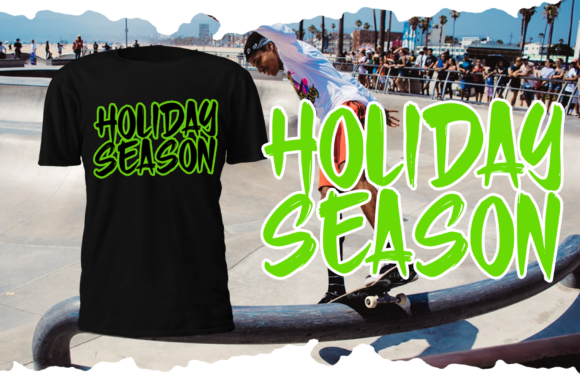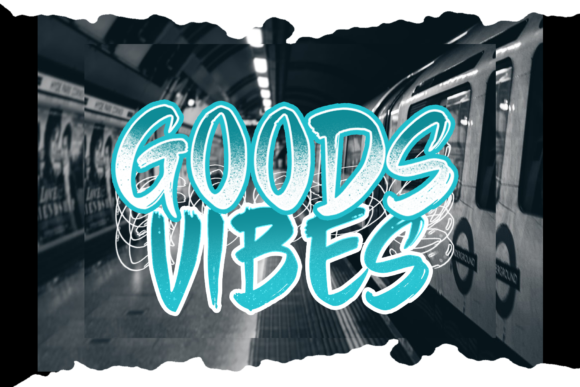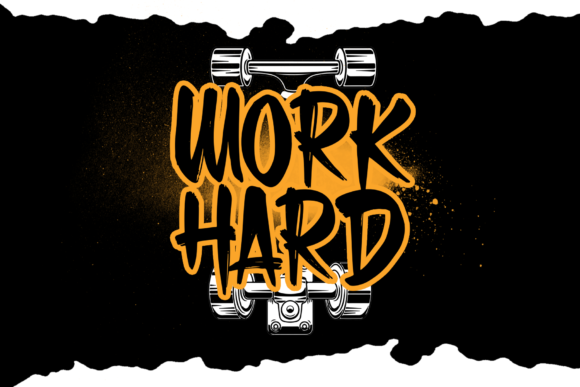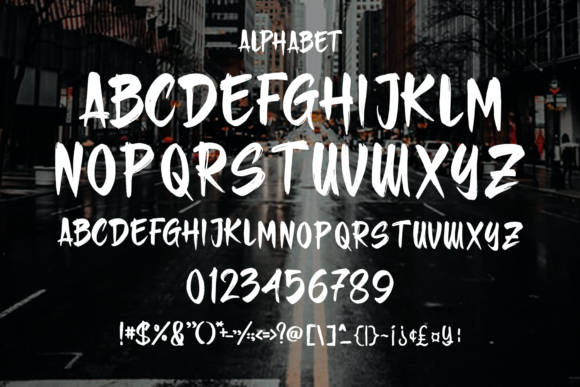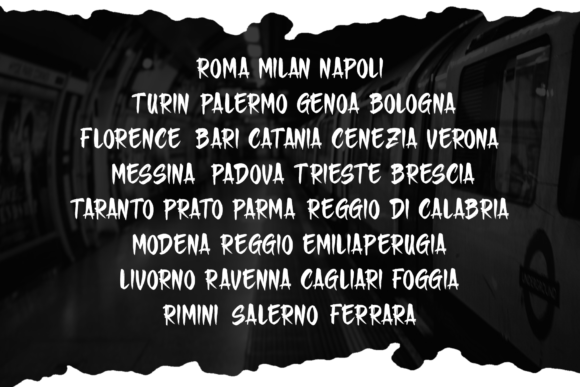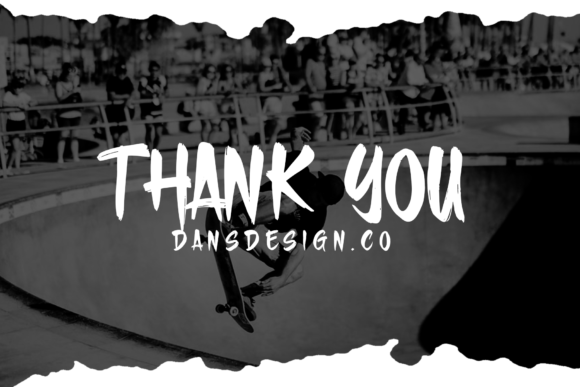
Introducing Burn Kills Font: Elevate Your Designs with a Cool Brushed Display Font
Are you tired of using the same old fonts in your designs? Look no further than Burn Kills Font, a cool brushed display font that’s sure to take your creations to the next level. With its unique and edgy style, Burn Kills Font is an incredible asset to any font library, regardless of the topic or theme. In this article, we’ll dive into the features and benefits of Burn Kills Font, and explore how it can elevate your designs and help you stand out from the crowd.
The Power of Brushed Fonts
Brushed fonts have become increasingly popular in recent years, and for good reason. They add a touch of authenticity and raw emotion to any design, giving it a sense of grit and texture that’s hard to replicate with clean, digital fonts. Burn Kills Font takes this concept to the next level, with a bold and expressive design that’s perfect for making a statement. Whether you’re working on a logo, a poster, or a social media graphic, Burn Kills Font is sure to grab attention and leave a lasting impression.
What Makes Burn Kills Font So Special?
So, what sets Burn Kills Font apart from other brushed display fonts on the market? Here are just a few of its standout features:
- Unique and Edgy Style: Burn Kills Font has a one-of-a-kind design that’s both bold and eye-catching. Its rough, brushed texture gives it a sense of grit and attitude that’s perfect for making a statement.
- Versatility: Whether you’re working on a logo, a poster, or a social media graphic, Burn Kills Font is versatile enough to fit any design need. Its bold and expressive style makes it perfect for headlines, titles, and short phrases.
How to Use Burn Kills Font in Your Designs
So, how can you start using Burn Kills Font in your designs? Here are a few ideas to get you started:
- Logos and Branding: Use Burn Kills Font to create a bold and eye-catching logo that’s sure to stand out. Its unique style makes it perfect for businesses and brands that want to make a statement.
- Posters and Flyers: Add some edge to your posters and flyers with Burn Kills Font. Its bold and expressive style makes it perfect for headlines and titles.
- Social Media Graphics: Use Burn Kills Font to create eye-catching social media graphics that are sure to grab attention. Its versatility makes it perfect for a range of design needs, from Facebook posts to Instagram stories.
Tips and Tricks for Getting the Most Out of Burn Kills Font
Here are a few tips and tricks for getting the most out of Burn Kills Font:
- Experiment with Different Sizes: Burn Kills Font looks great in a range of sizes, from small and subtle to large and bold. Experiment with different sizes to find the one that works best for your design.
- Pair it with Other Fonts: Burn Kills Font pairs well with a range of other fonts, from clean and digital to bold and expressive. Experiment with different font combinations to find the one that works best for your design.
- Use it to Add Emphasis: Burn Kills Font is perfect for adding emphasis to your designs. Use it to highlight important information or to draw attention to a specific element.
In conclusion, Burn Kills Font is a cool brushed display font that’s sure to elevate your designs and help you stand out from the crowd. Its unique and edgy style makes it perfect for making a statement, while its versatility and ease of use make it a great addition to any font library. Whether you’re a designer, a crafter, or just someone who loves to create, Burn Kills Font is an incredible asset that’s sure to inspire and empower your creativity.